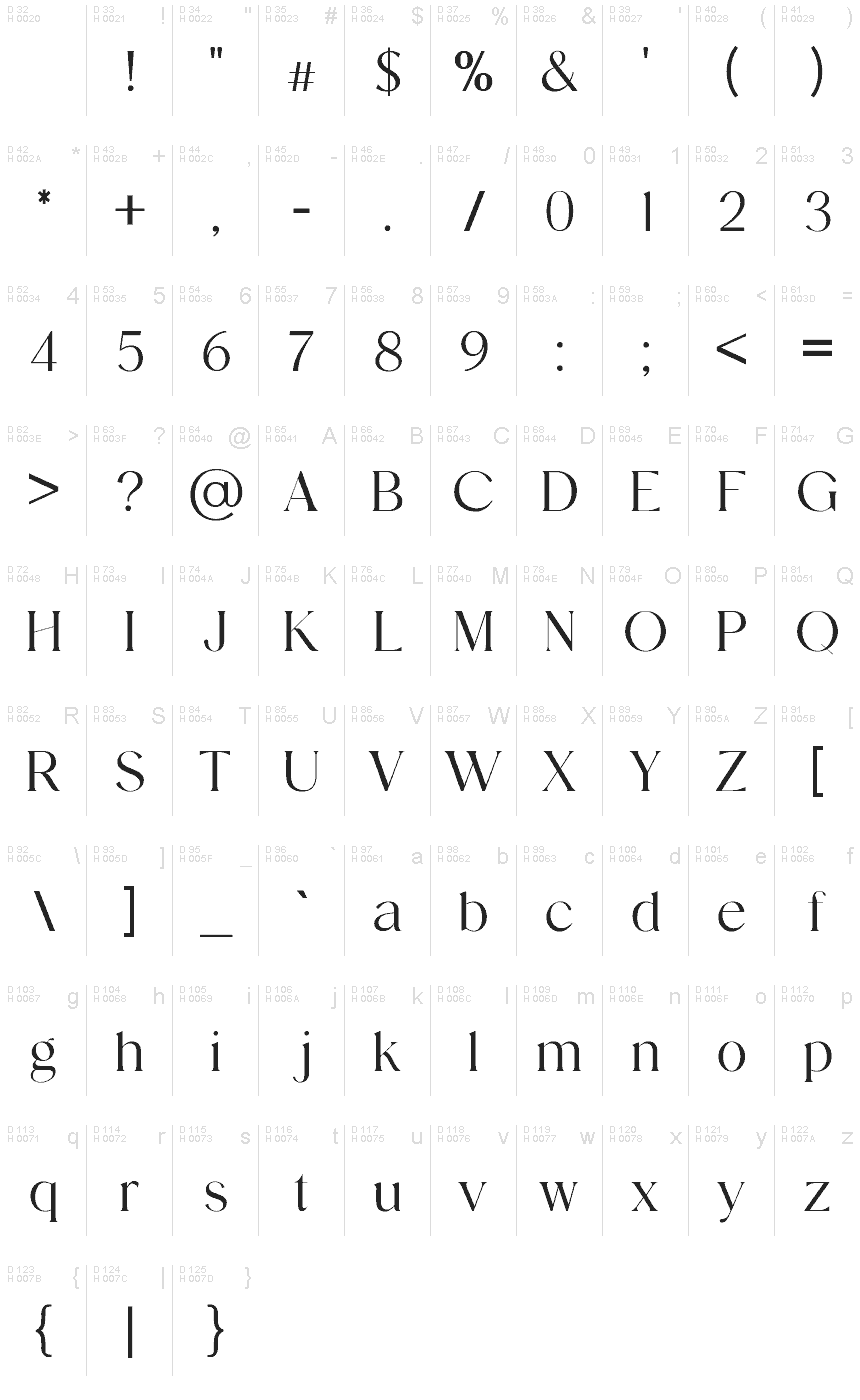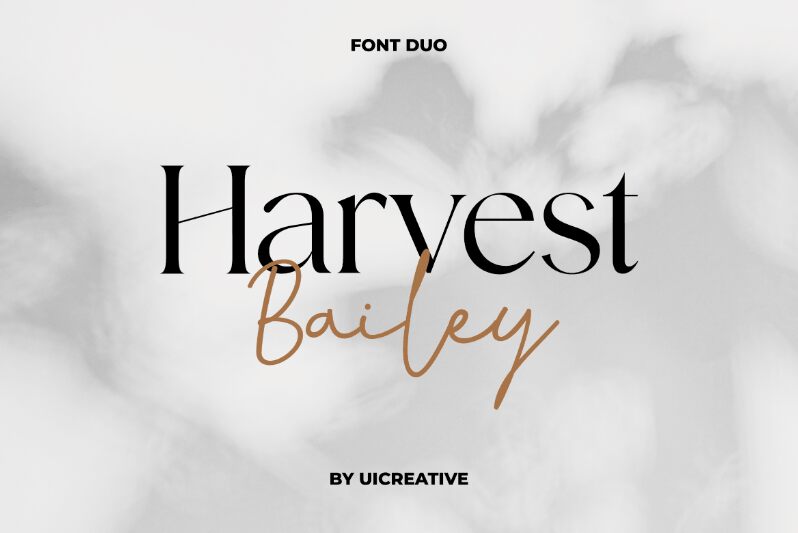
Harvest Bailey Regular
Harvest Bailey is a beautiful serif typeface designed by UI Creative. This retro serif font comes with many features: upper and lowercase letters, numerals, punctuation, ligatures, international characters and a lot more!
Harvest Bailey is the perfect serif to use on book covers, magazines, business cards, logos and labels. Try it today and put yourself in a vintage environment.